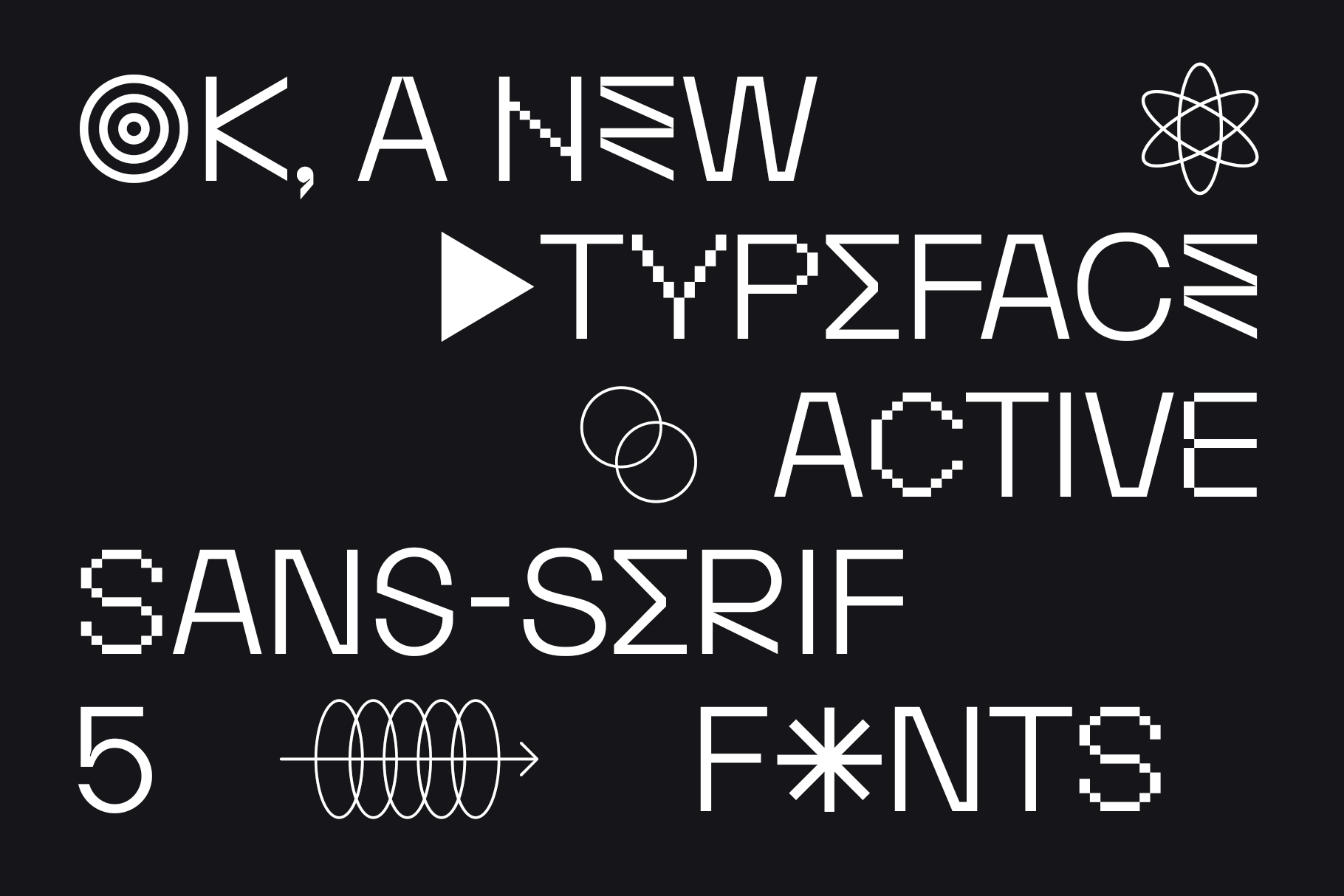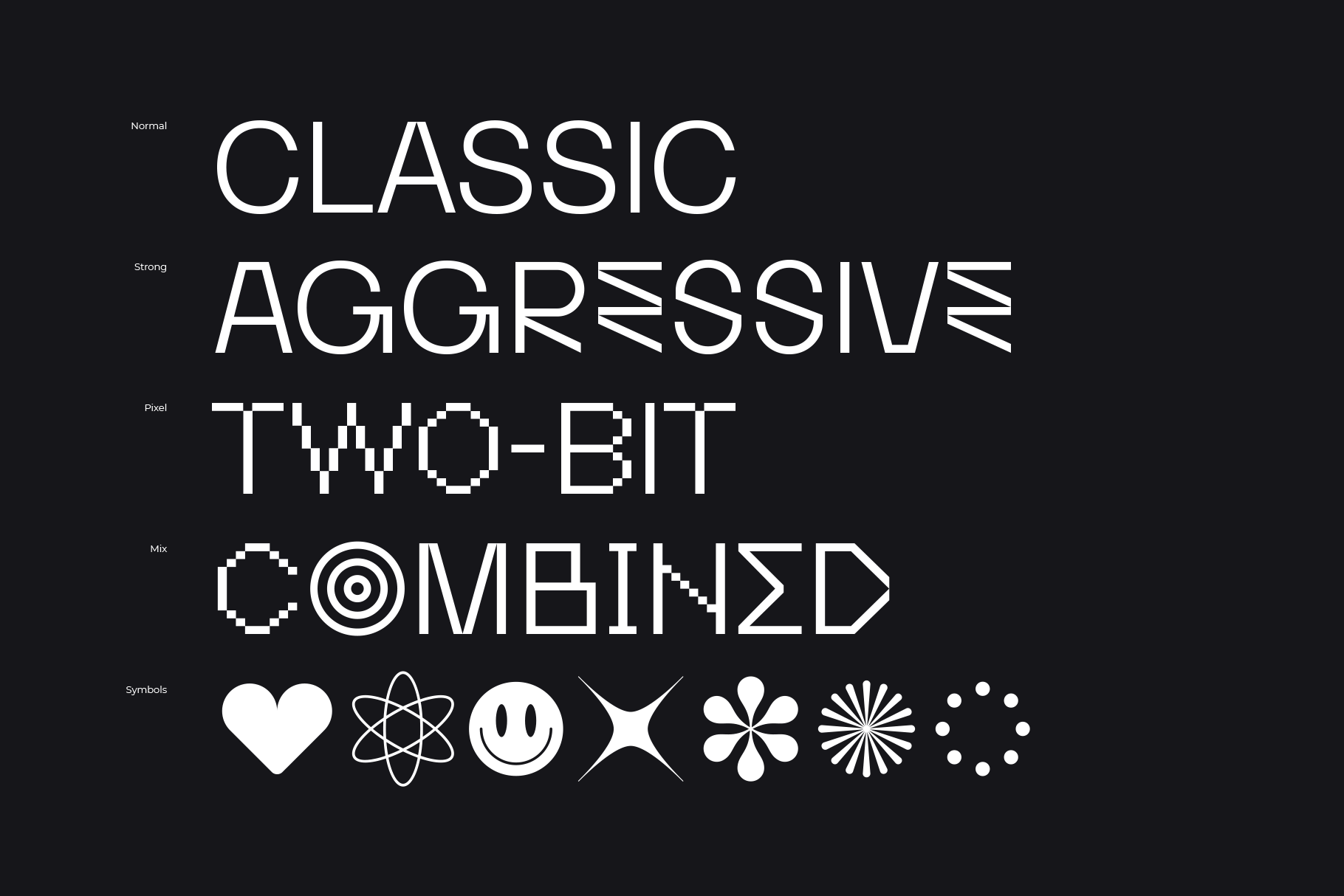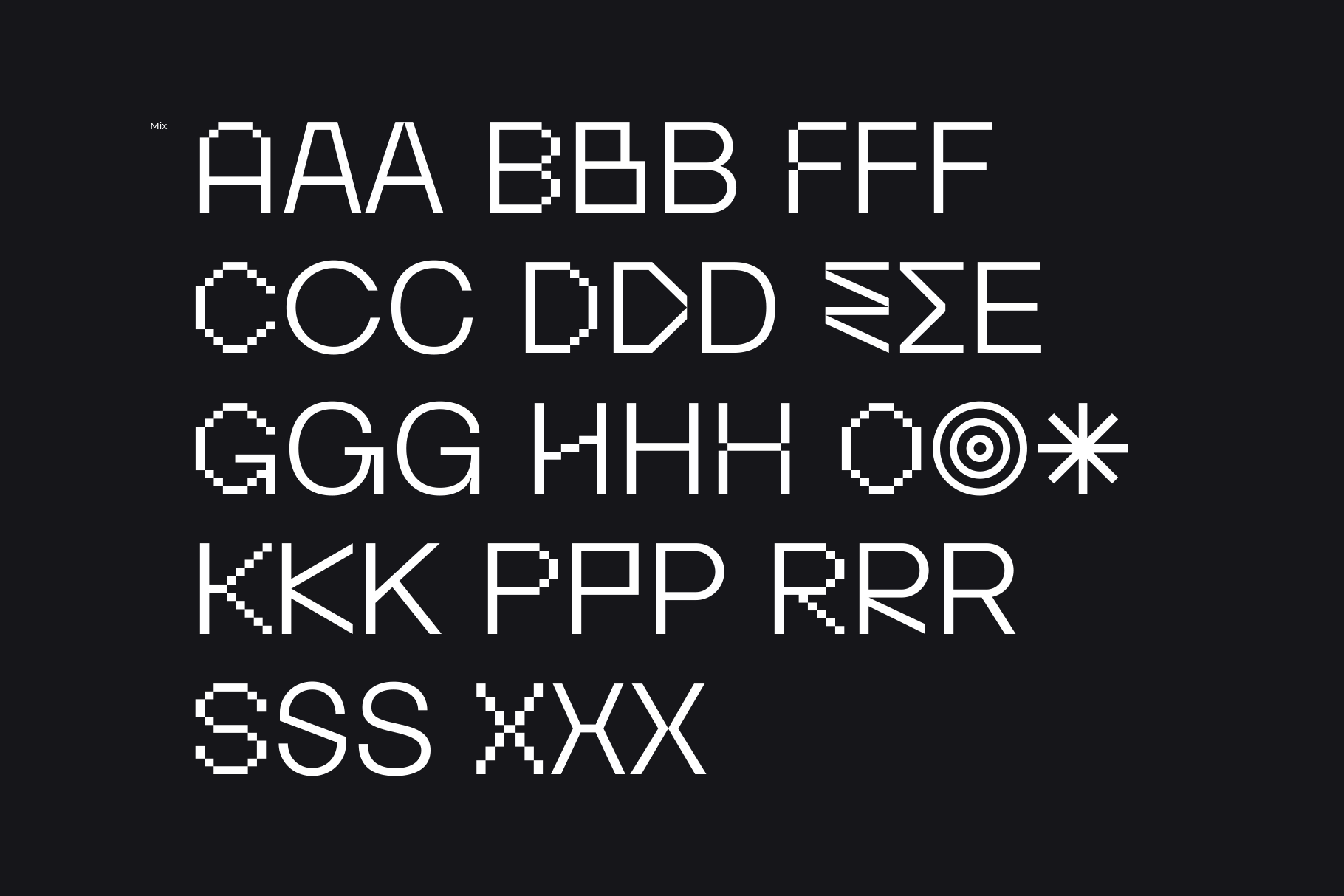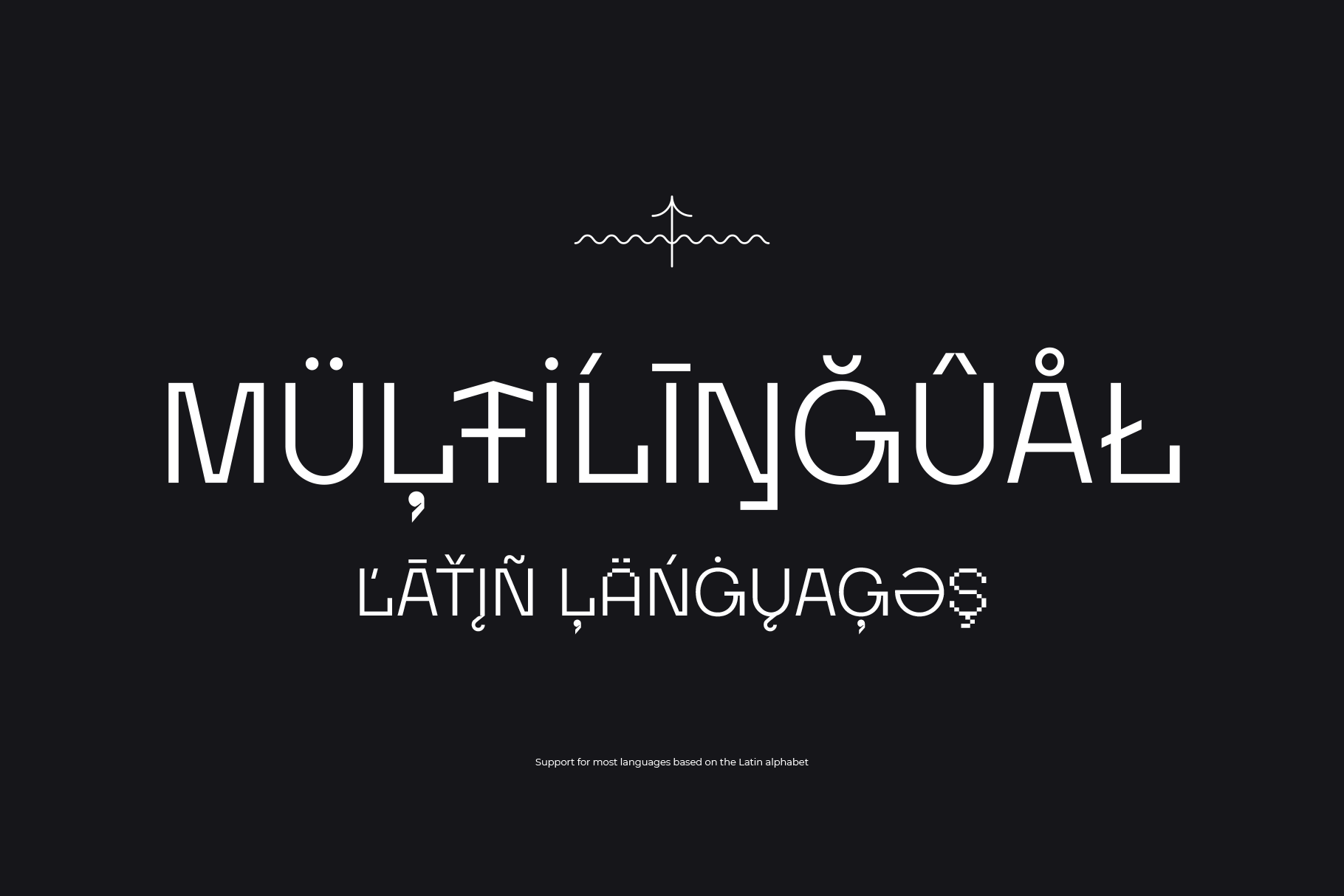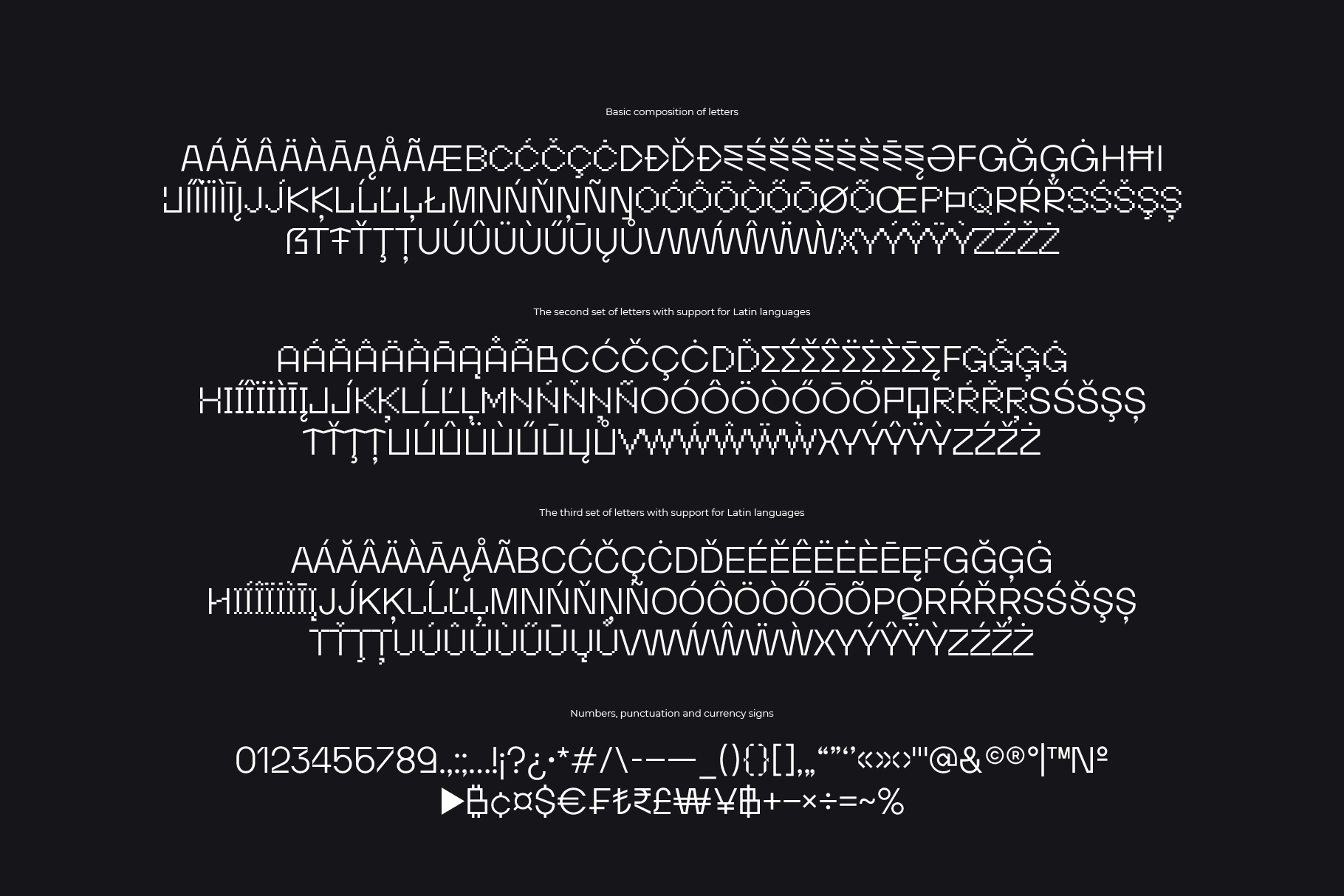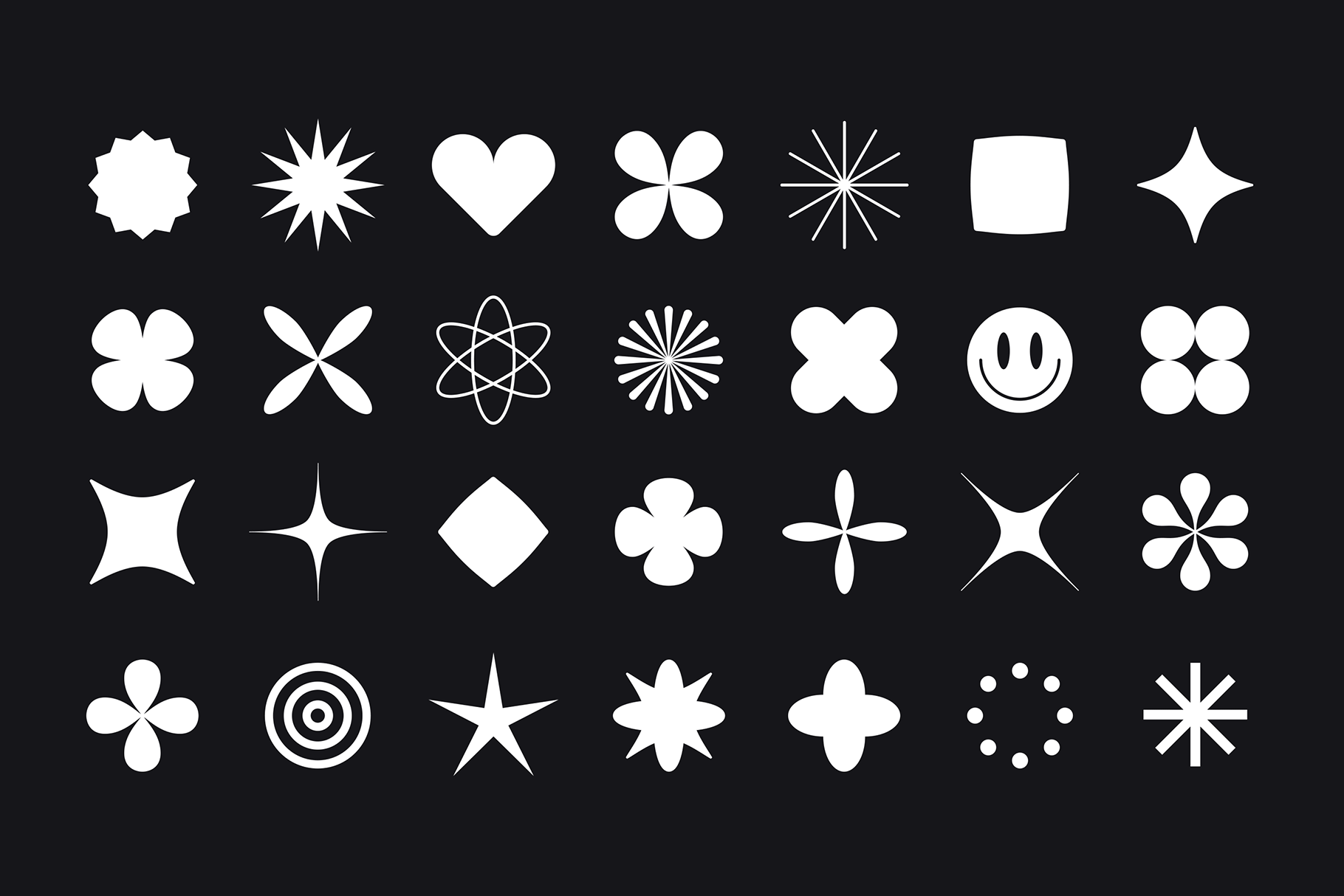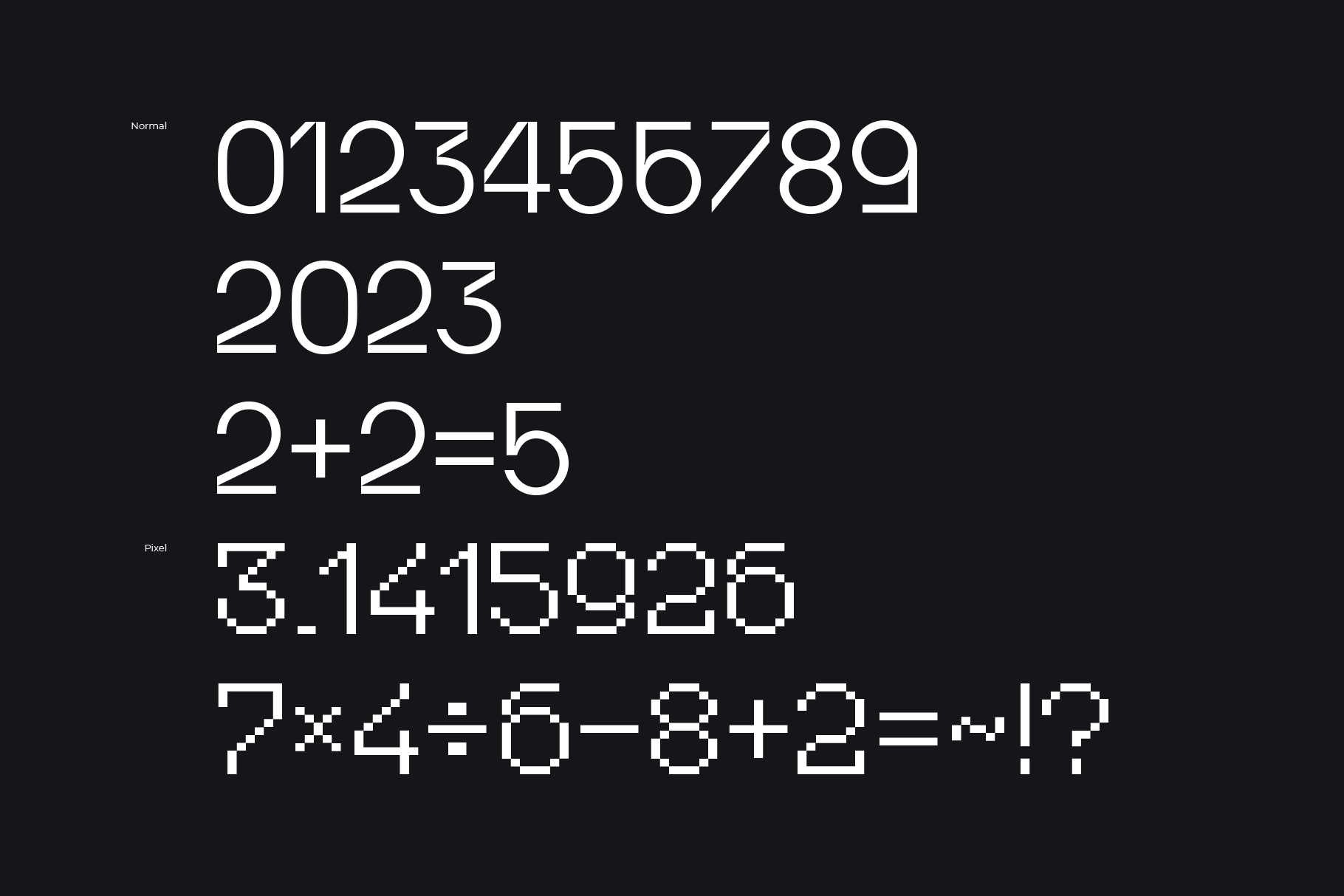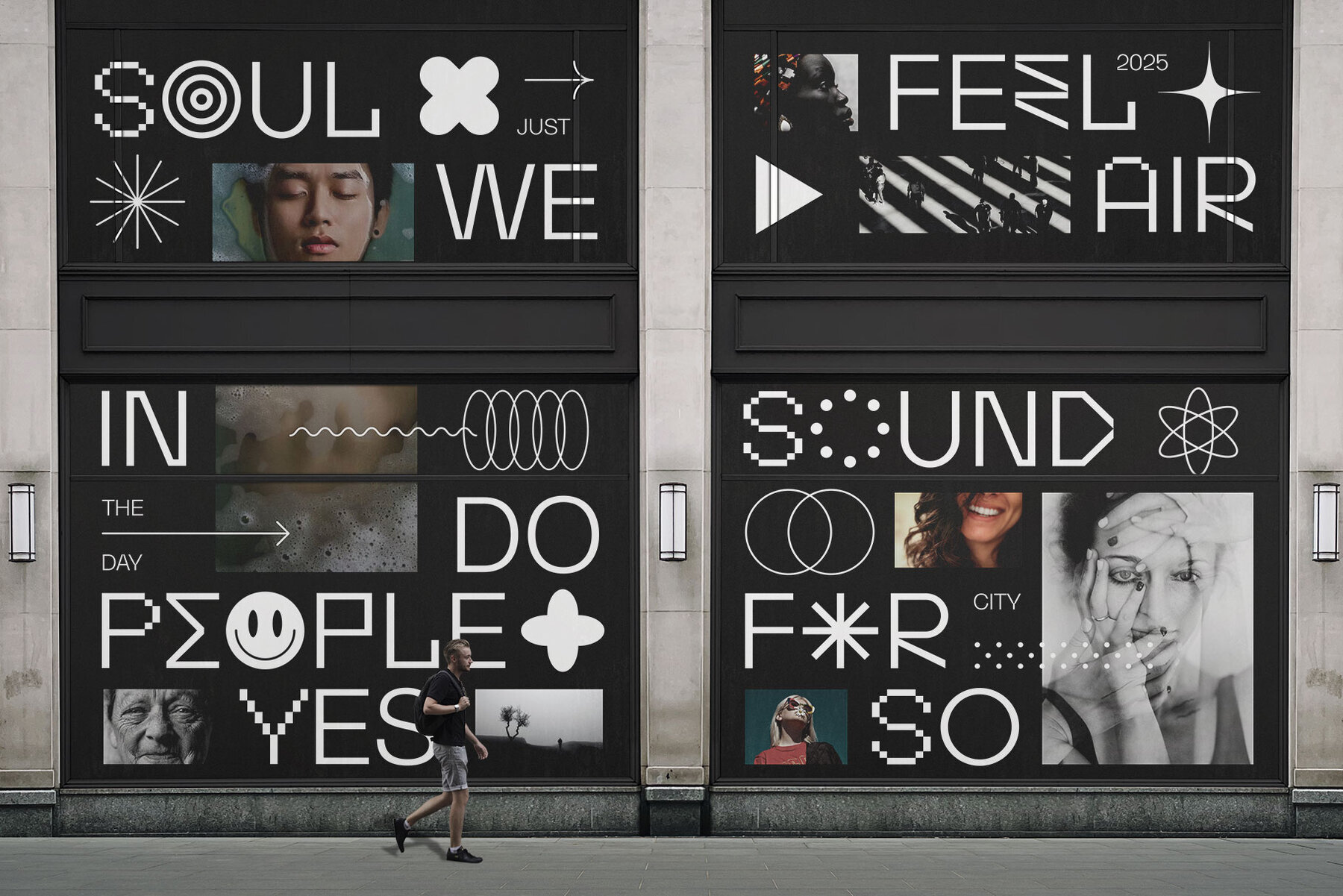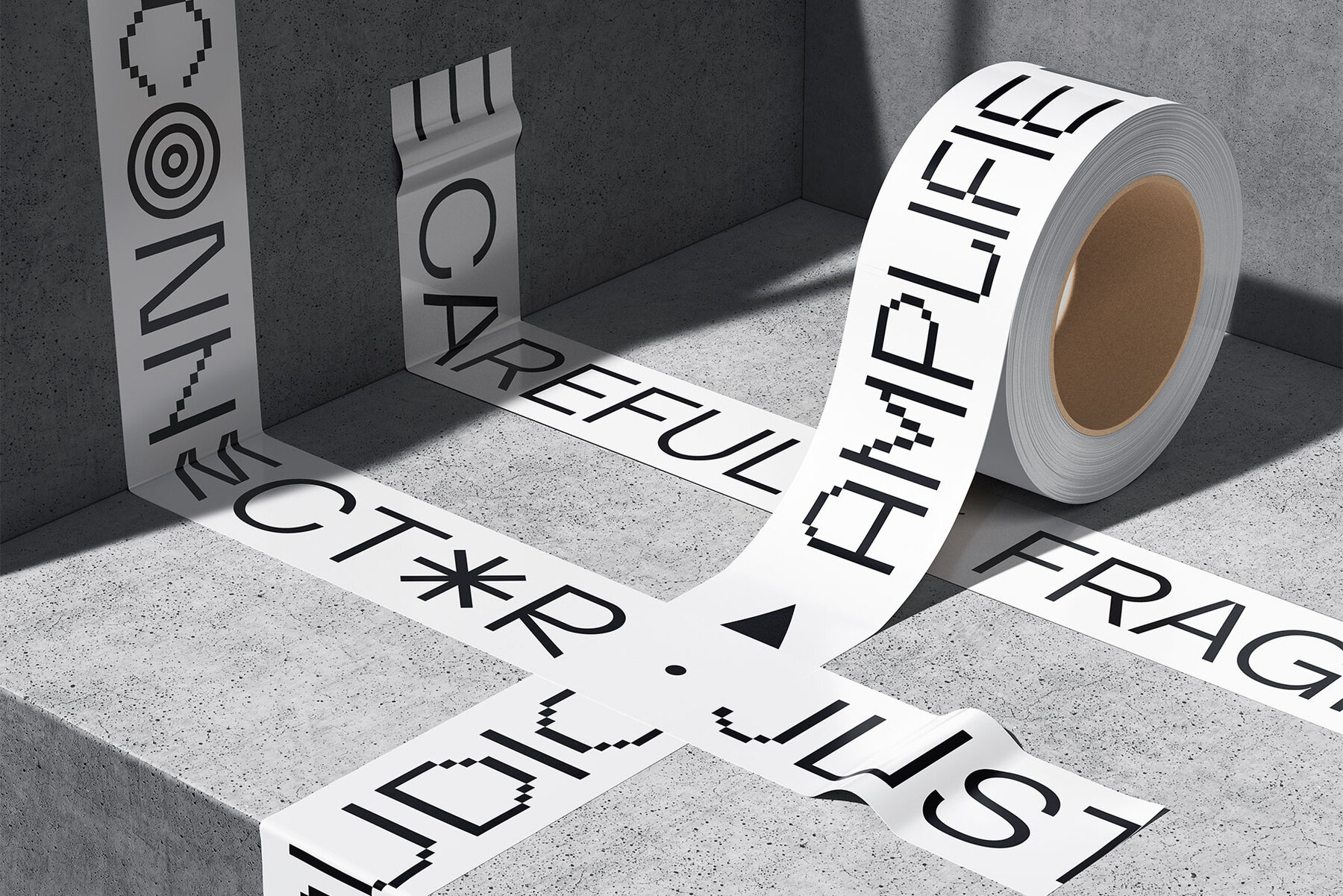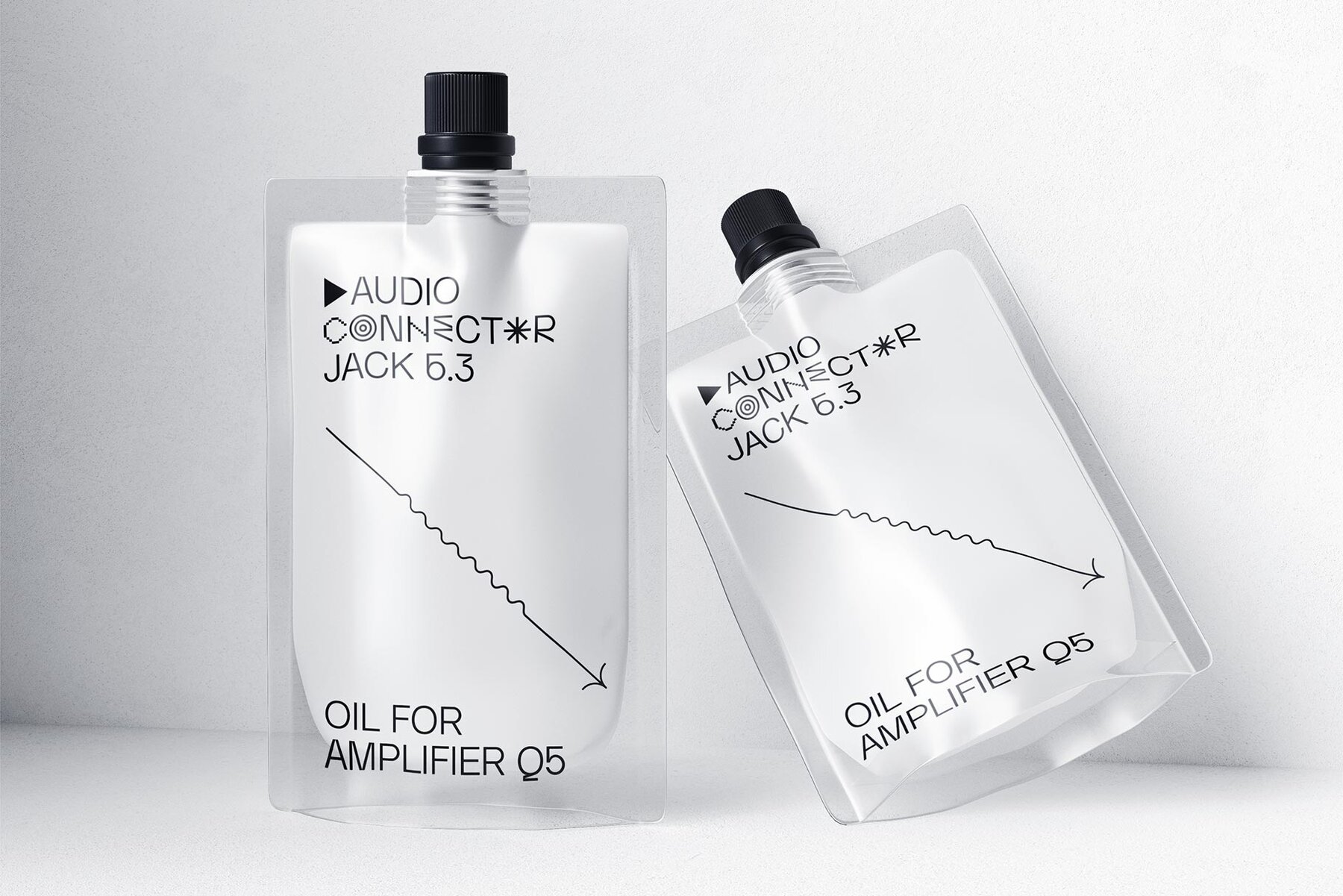
FT Activica Font
On one hand, this font serves as a calm sans-serif, while on the other, it stands alone as a graphic system. Enriched with various shapes and symbols, it goes beyond the mere conveyance of information through text. It's an emotional neo-grotesque and a versatile tool in the hands of a designer, capable of adapting to a project and guiding the flow of information in the desired direction, adding either rigor or emotion in the appropriate places.